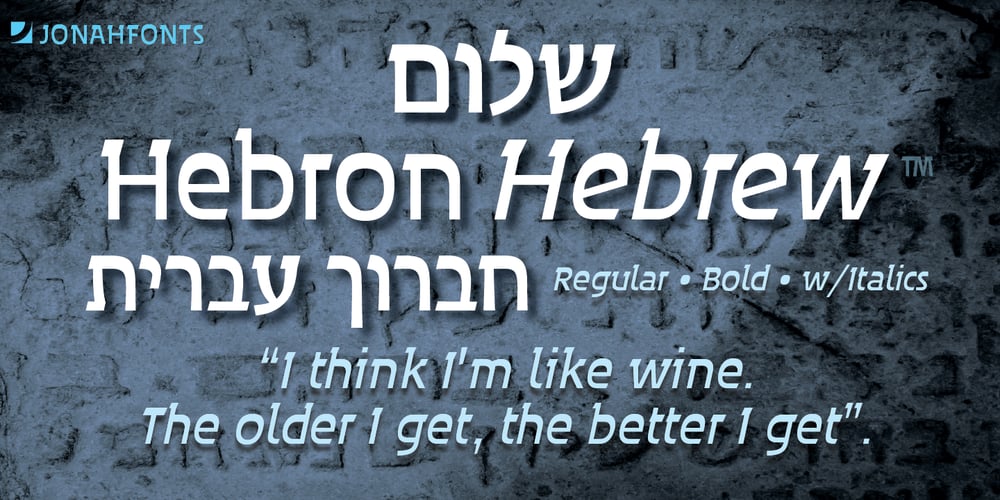
Hebron Hebrew Font Family was designed by John Nahmias and published by Jonahfonts. Hebron Hebrew contains 4 styles and family package options. Hebron Hebrew is a font that contains 22 Hebrew letters along with five word ending letters that are automatically activated when used in Applications such as Apple-Pages and MicroSoft-Word. The Hebrew letters do not contain “Niqquds” (Hebrew Vowels) except with the added alternates, if desired. You may also be interested in my NEWMARK Hebrew, YOM TOV Hebrew PAGEANTRY Hebrew, HANAH Hebrew and KOMUNIDAD Hebrew Script FONTS.